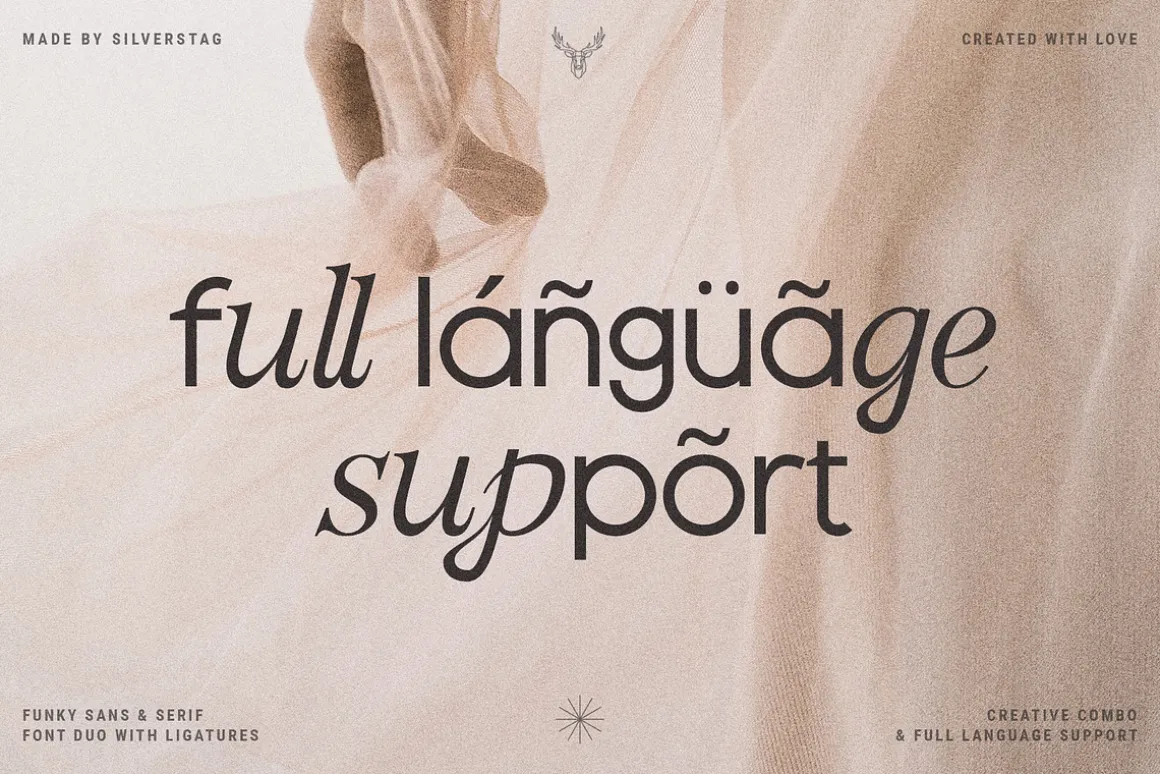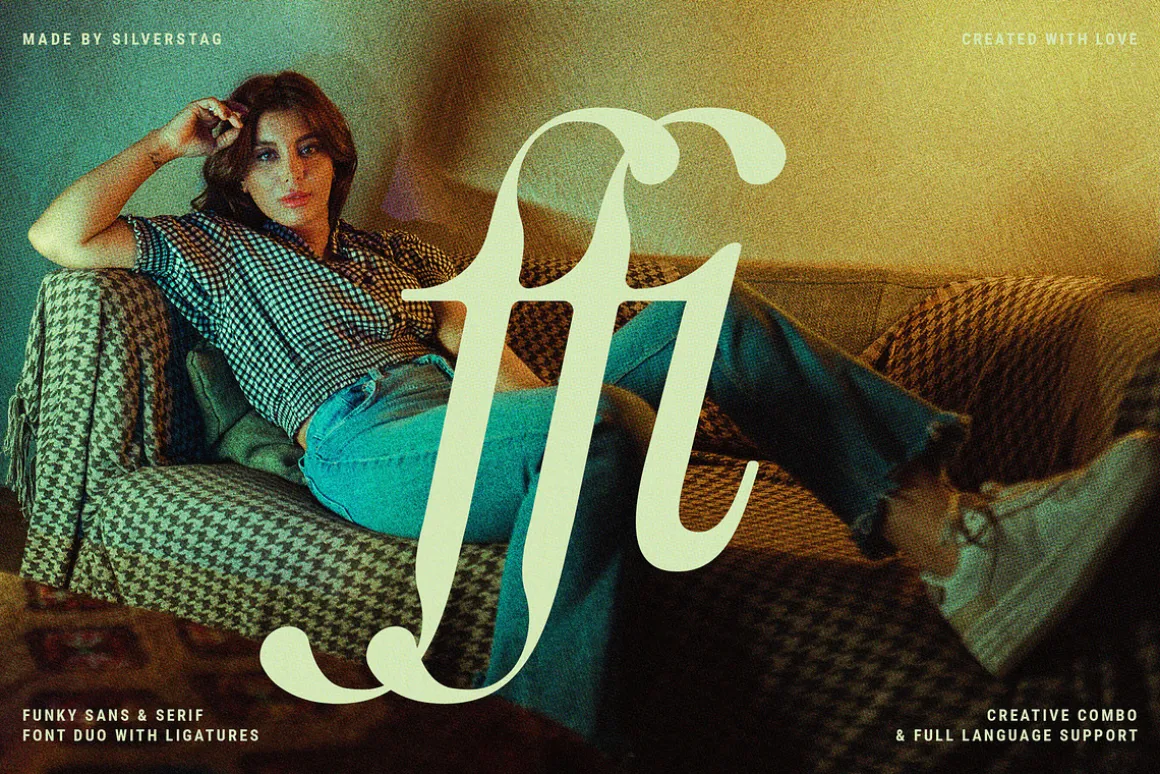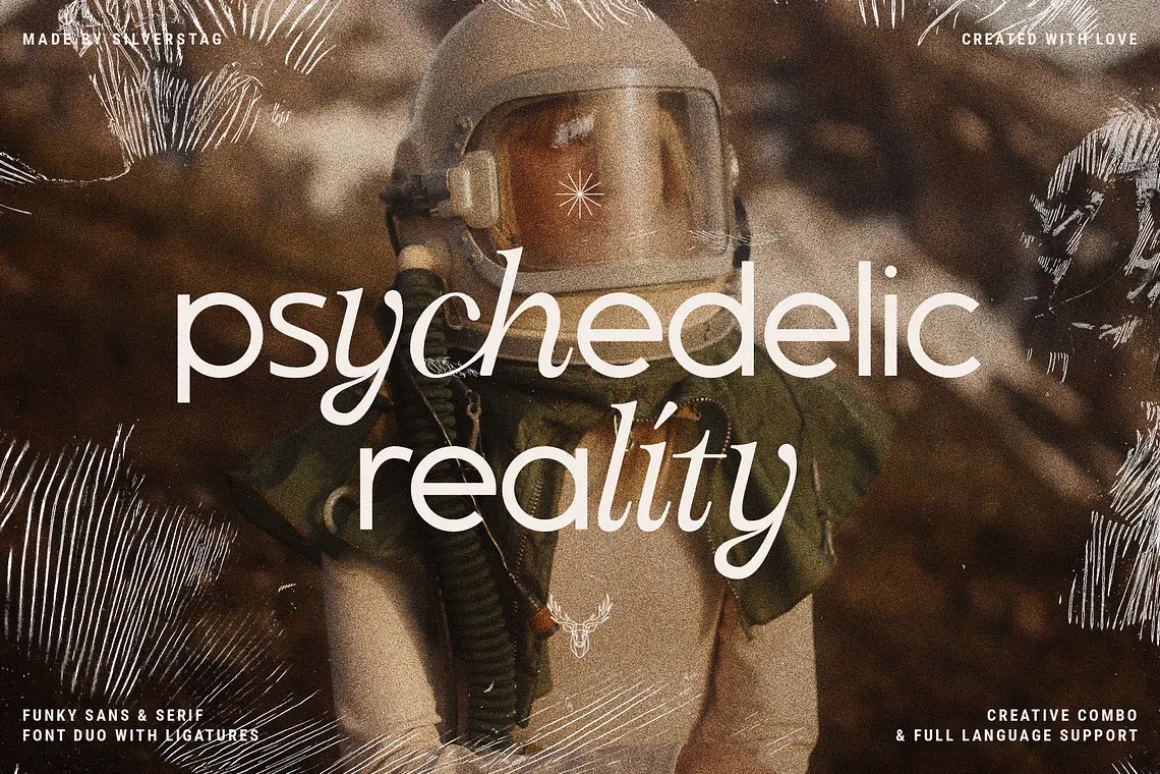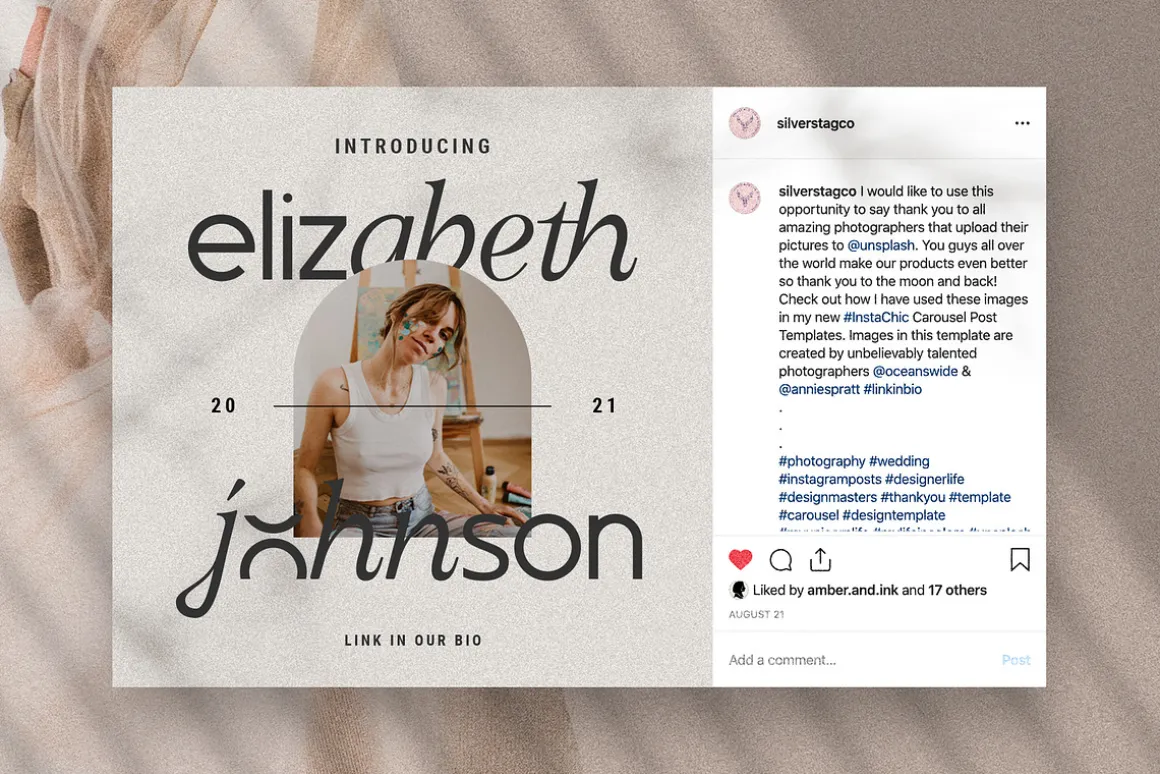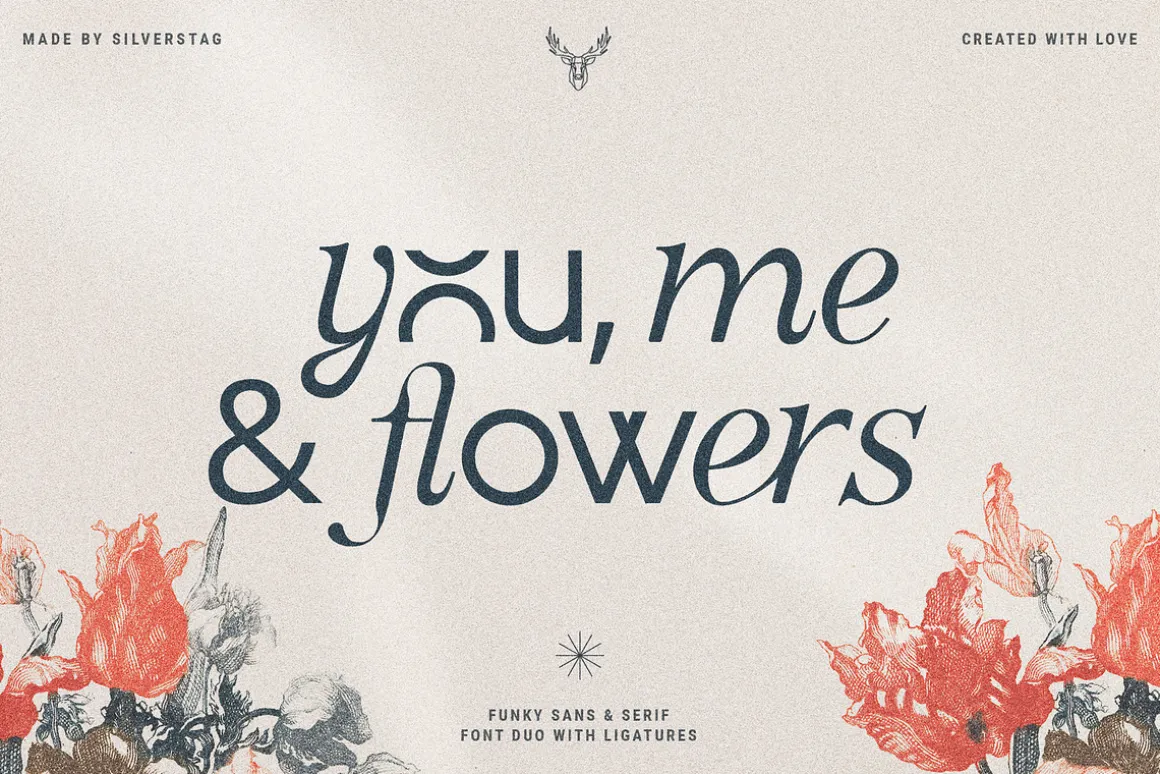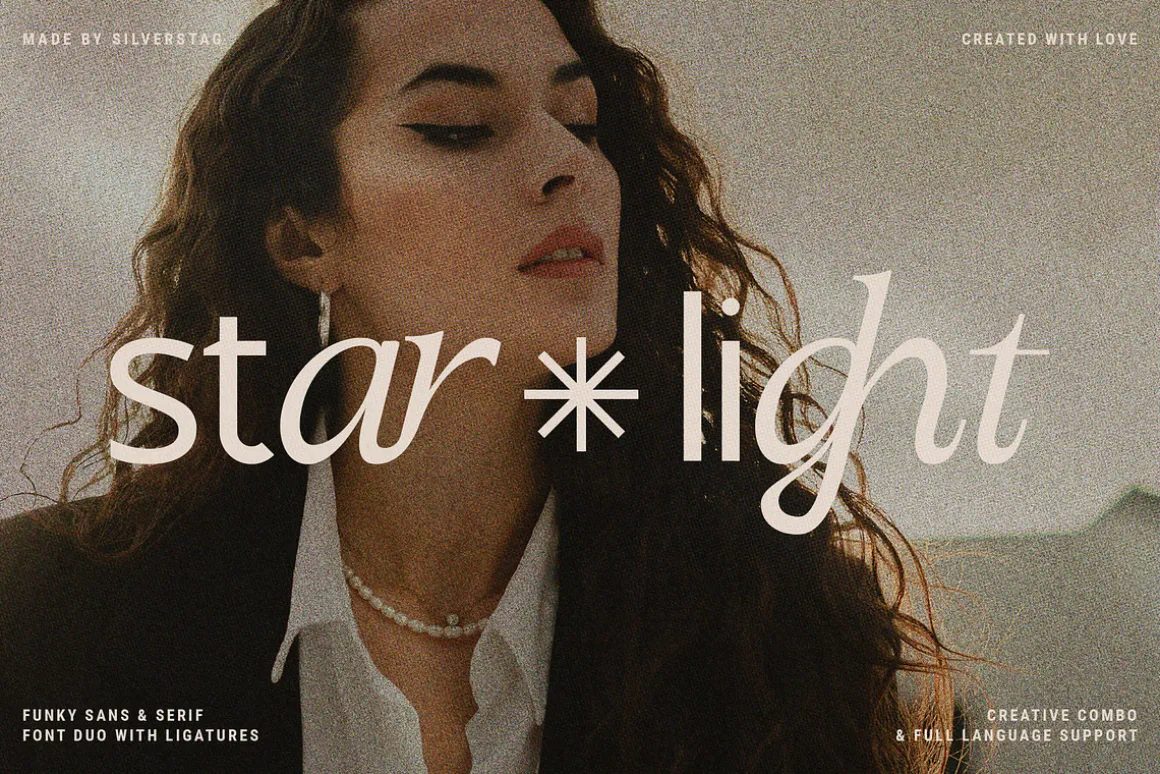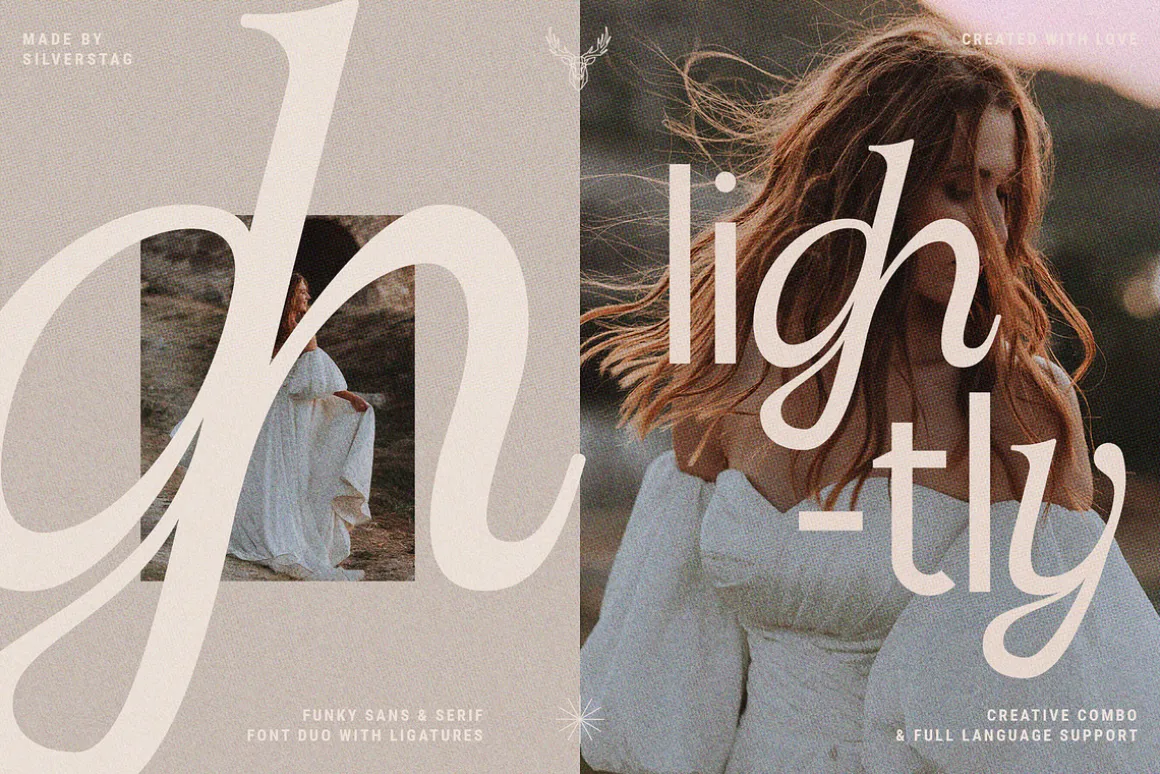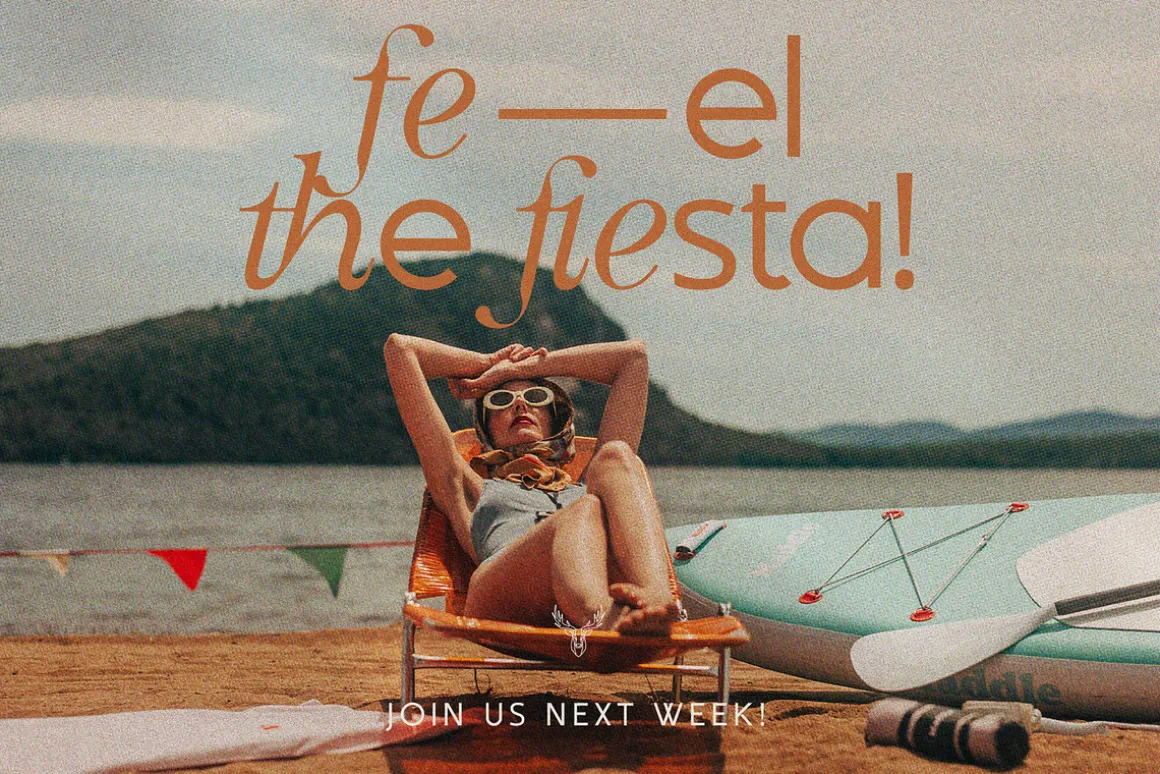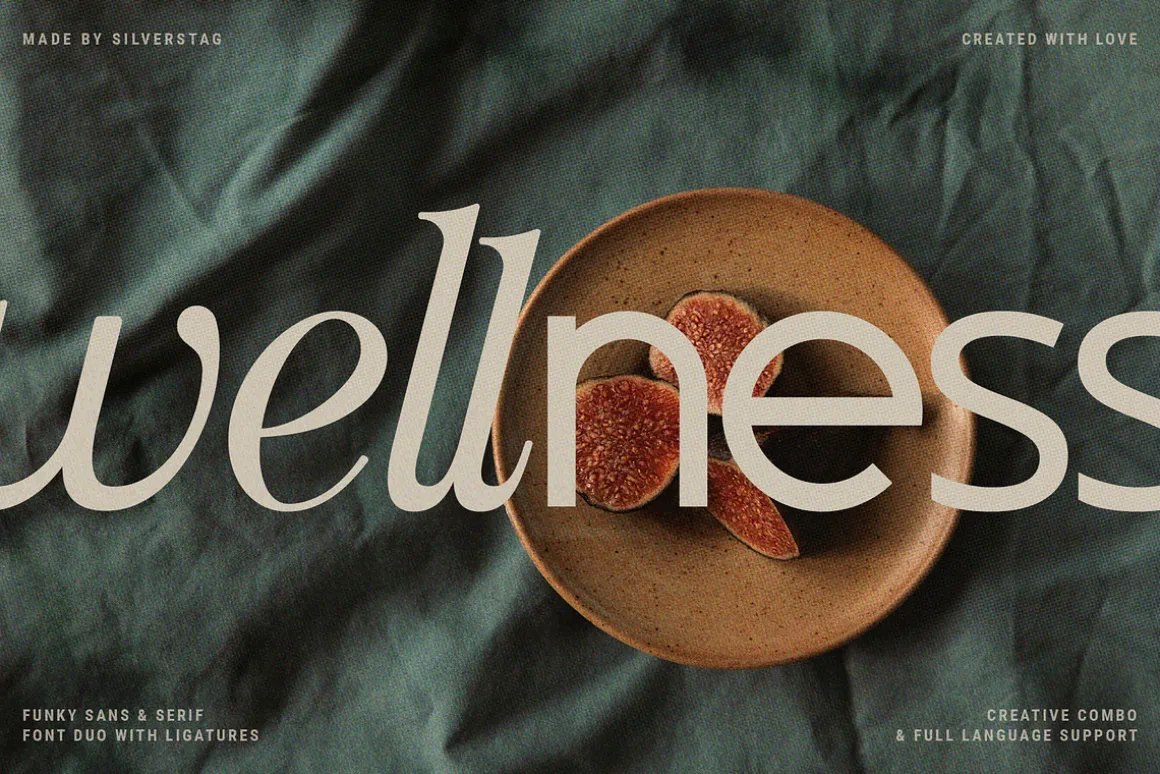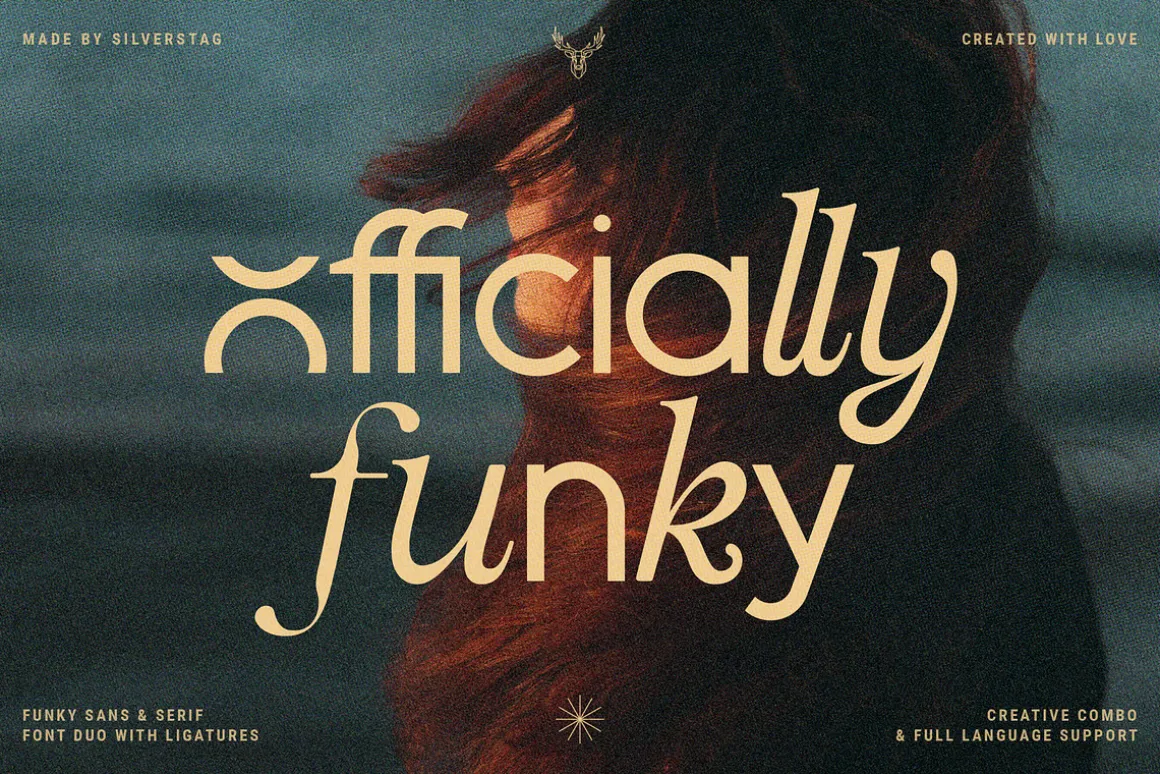
officially funky is a brand new, creative & unique font duo. It is a part of my font duo series and after French Lovers & Silver Garden it was time to create a font that is both modern and nostalgic. It is a 2 in 1 font, where the sans makes it modern and alternate serif letters & cool ligatures will make each of projects 100% unique. The font also includes over 45 ligatures and I am sure you will love this funky vibe.
It also includes full language support, punctuation, numerals and detailed instructions how to use alternate letters most of the apps on your computer, as well as in Canva.
- Over 45 ligatures in sans & serif font
- Numerals & Punctuation